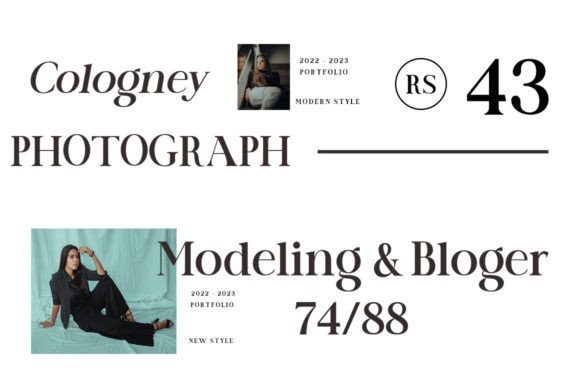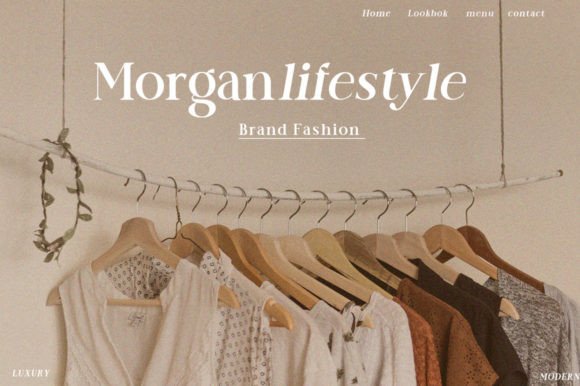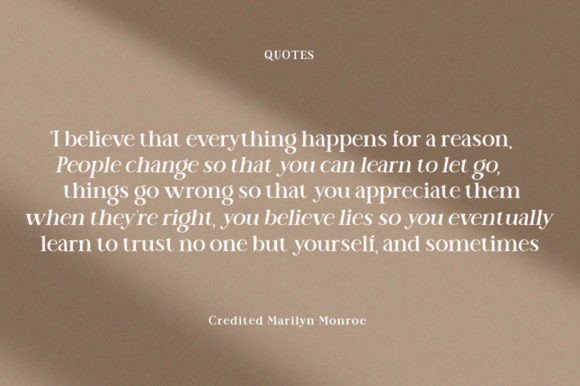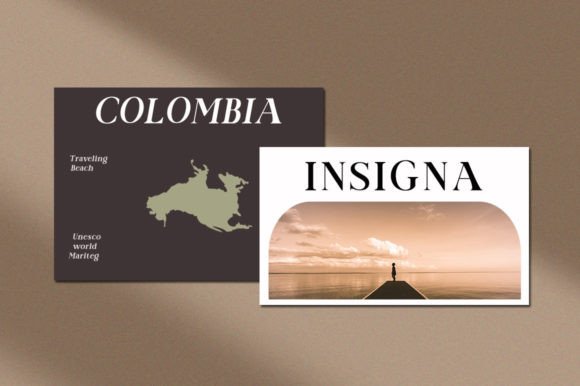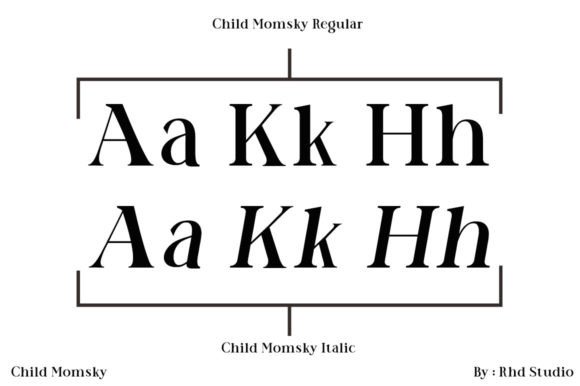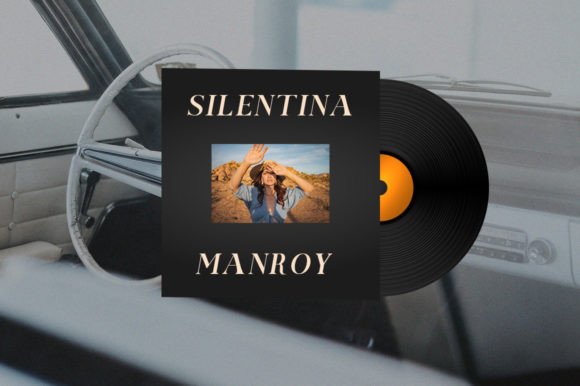
Introduction to Child Momsky Font
Style and Grace personified – say hello to Child Momsky.
This typeface has two main styles, designed to work elegantly in unison and apart The Italic style is dreamy, sultry, and light-footed – a perfect partner for the more serious serif.